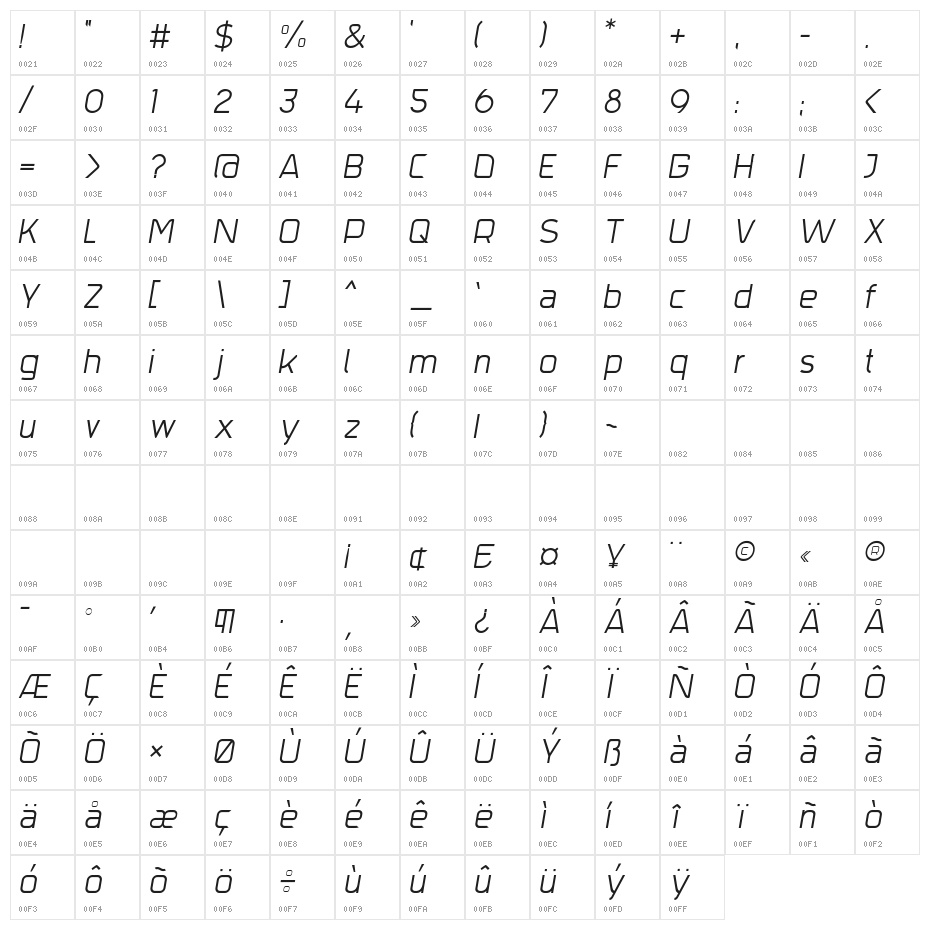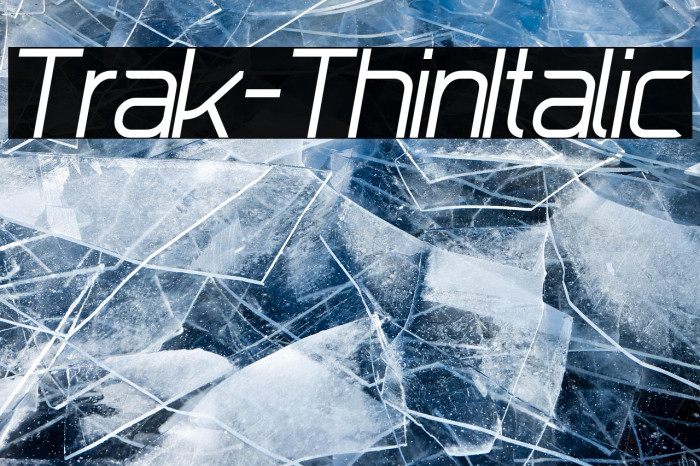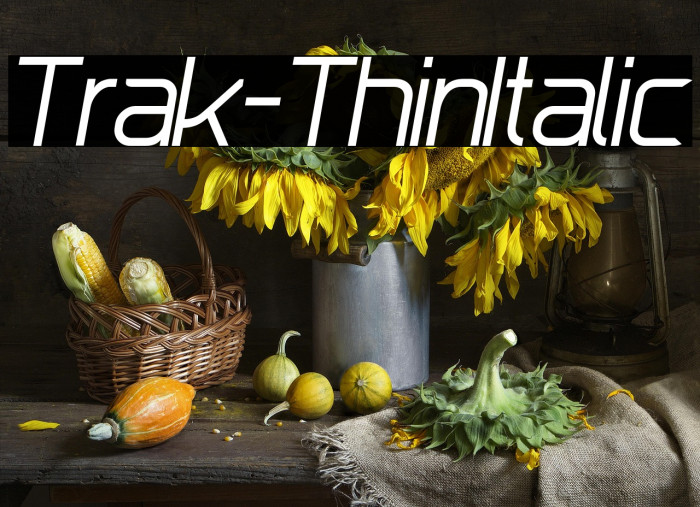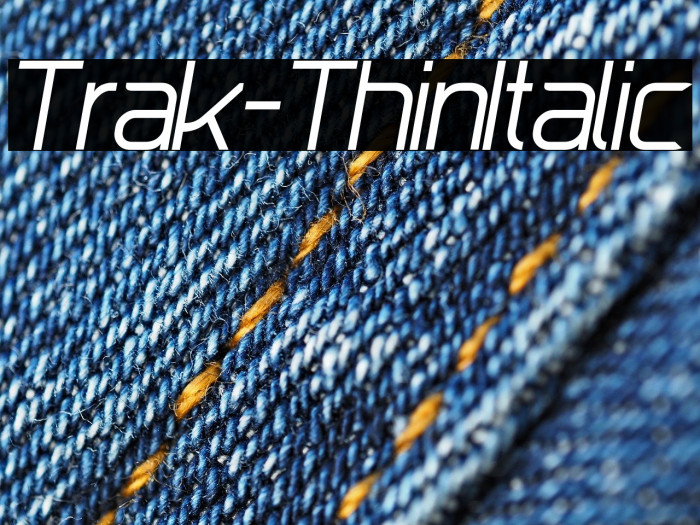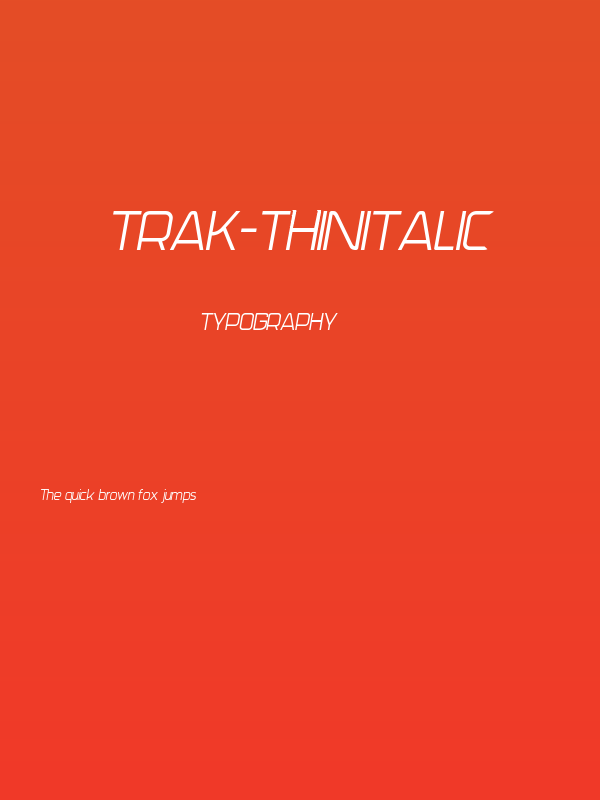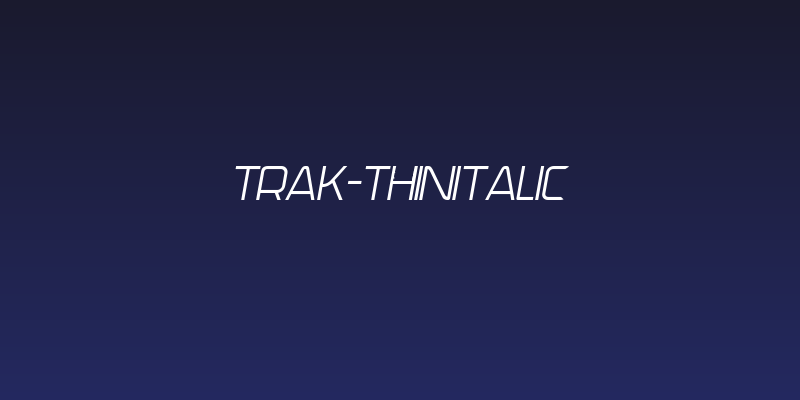
Trak-ThinItalic Font
Trak-ThinItalic Description
This font features a sleek, modern design with a thin, italicized style. The characters are slightly condensed, giving it a streamlined appearance. The strokes are consistent and smooth, with a medium contrast between thick and thin lines. The uppercase letters have a distinctive slant, while the lowercase letters maintain a uniform height, contributing to its contemporary aesthetic. The numerals and special characters are designed to complement the overall style, making it suitable for a variety of applications.
| Use Case | Headlines, Logos, Editorial |
| Proposed Projects | Ideal for modern branding, tech-related projects, sleek packaging designs, and contemporary editorial layouts. |